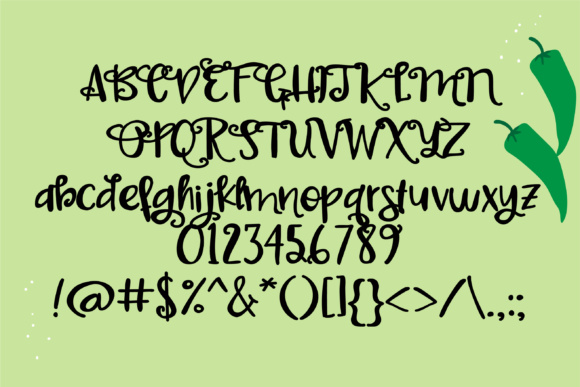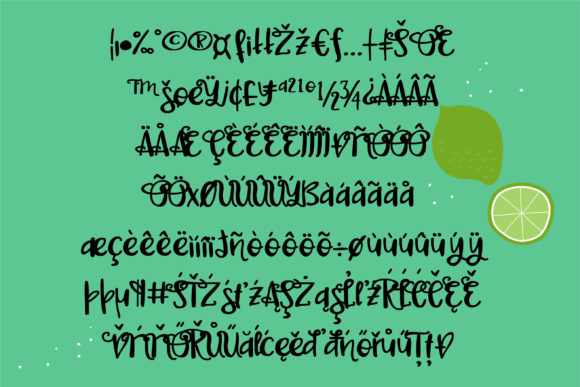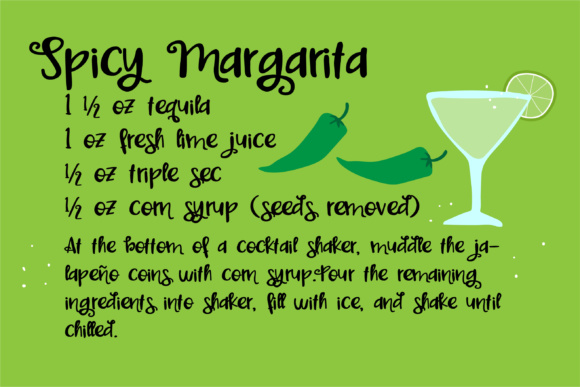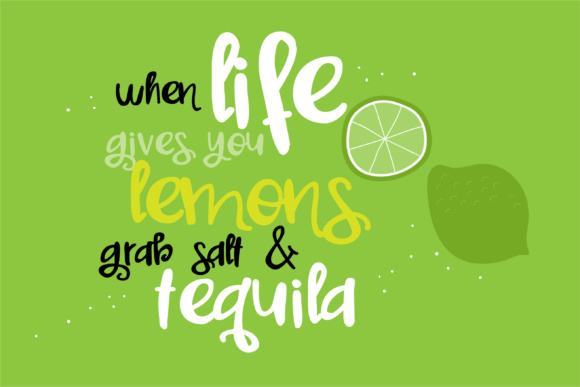
HomeScript FontsSpicy Margarita Font Script Fonts Spicy Margarita Font FacebookXPinterestWhatsApp Spicy Margarita Font Poster 2 Spicy Margarita Font Poster 3 Spicy Margarita Font Poster 4 Spicy Margarita Font Poster 5 About Spicy Margarita Font Spicy Margarita is a hand-written font. Spicy Margarita is whimsical, curly and has a bit of texture to it. DOWNLOAD ON CREATIVE FABRICAThis font is sold and delivered by Creative Fabrica. Font Canyon may earn a commission if you buy through this link. People also explored Hershey Font Queens Font Chipper Font DearDay Font Cotton Hill Font Ferrum Font Modyste Monogram Asania Flower Font Klamoure Thin Font 351 0 TagsSpicy Margarita Font Previous articleRainbold FontNext articleRoyal Elegant Font LEAVE A REPLY Cancel reply Comment: Please enter your comment! Name:* Please enter your name here Email:* You have entered an incorrect email address! Please enter your email address here Website: Save my name, email, and website in this browser for the next time I comment. Personal Use Free Po Beef Personal Use Free Read more about this font The Fourth Avenue Personal Use Free Read more about this font Mahisya Personal Use Free Read more about this font Fat Max Personal Use Free Read more about this font BLOG The 10 Best Handwriting Fonts to Add Personality to Your Designs 10 of the Best Handwriting Fonts for Adding Personality to Your Designs There will undoubtedly be no other better choice than handwriting fonts to give... Free Fonts Risk: Why Free Fonts Can Be Dangerous for Designers To increase your work productivity, choose the most readable fonts. Modern Sans-Serif Fonts That Brands Love in 2025